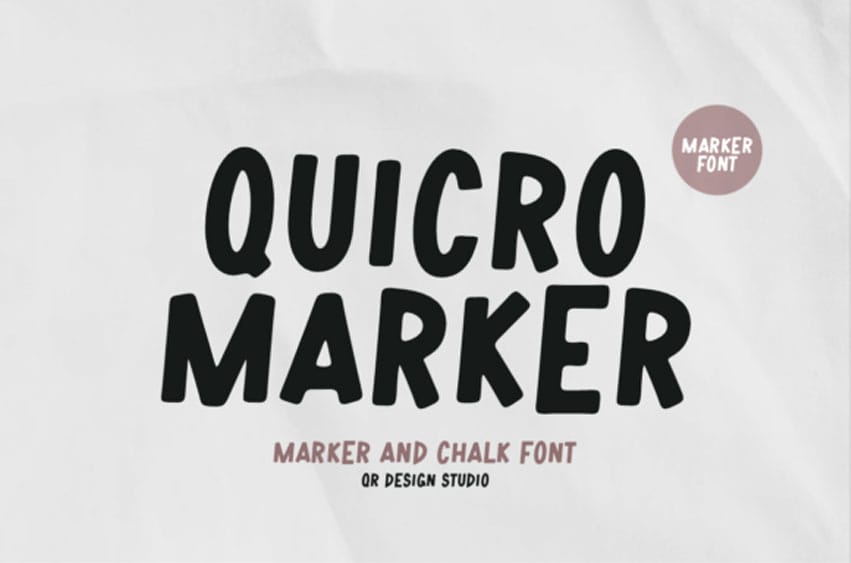
Quicro Marker Font is a bold, hand-drawn font inspired by marker strokes and chalkboard writing. Its slightly uneven edges and casual feel give it a fun, energetic vibe that’s perfect for educational materials, signage, product packaging, and playful branding.
Whether you’re creating school posters or DIY-style graphics, Quicro Marker adds a lively and approachable charm.